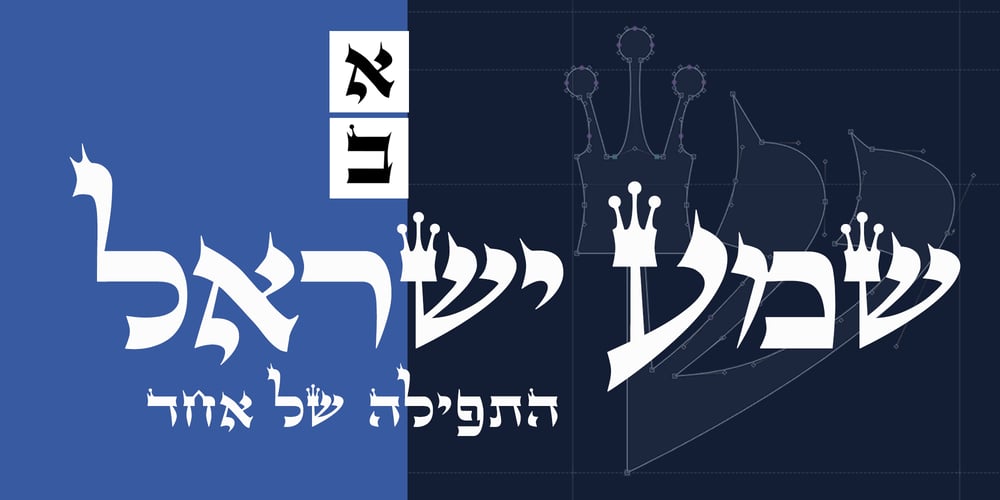
Sefer Torah Font Family was designed by Martin Richard Mendelsberg and published by Sefer Torah Fonts. Sefer Torah contains 1 styles and family package options. Based on ancient scribal texts, useful for Jewish education. Useful at text sizes and large scale applications. Bold high contrast typeface. Excellent support for Niqqud (vowels). All marks are programmed to fit each letter’s shape and width. Best used with apps that support right to left Hebrew text, like Adobe InDesign CC or MS Word.